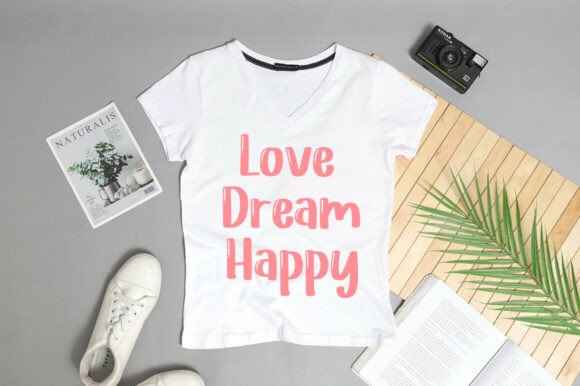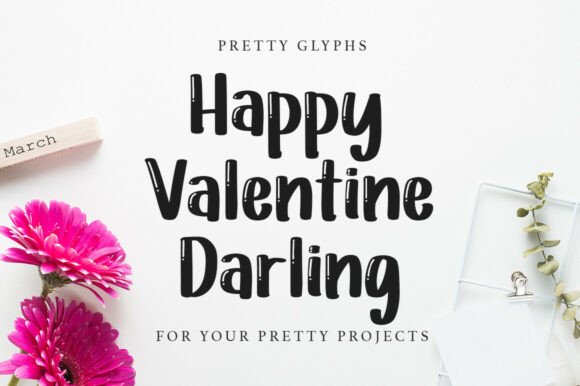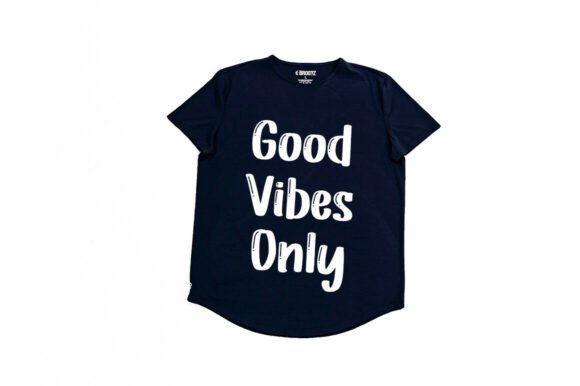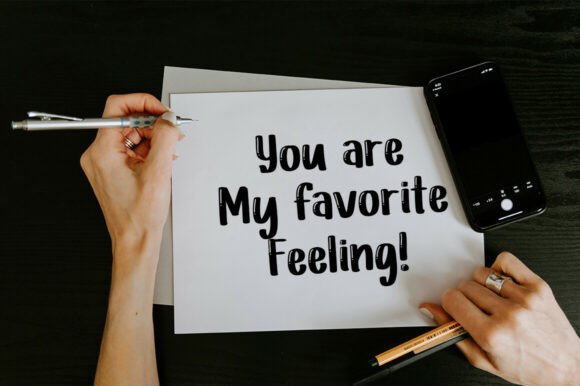
Introduction to Rustic Shine Font
Have you ever been in the midst of a creative project, searching for that perfect font to give it an extra oomph? For designers, finding the right typography can make all the difference between a good design and a great one. And that’s exactly where the Rustic Shine Font comes in – a game-changing display font that adds a high-energy “pop” to any project.
With its thick, juice-filled letterforms and integrated shine highlights, the Rustic Shine Font is a standout typeface that’s sure to grab attention. Whether you’re working on a celebratory branding project, creating eye-catching social media ads, or designing festive party posters, this font is an excellent choice. And the best part? It’s incredibly easy to use – simply pair it with vibrant gradients or neon colors to make the “shines” truly pop off the screen.
Key Features of Rustic Shine Font
- High-quality, unique font design ideal for creative projects
- Transparent background, making it easy to use with various backgrounds
- Designed to add a touch of elegance and sophistication to your design
- Perfect design resource for those looking for a high-quality, rustic font
Honest Review: Rustic Shine Font
I recently had the chance to experiment with the Rustic Shine Font, and I must say it’s been a great addition to my design toolbox. ✨ The font is perfect for creative projects that require a touch of elegance and sophistication. Its high-quality design makes it stand out from other free download fonts.
The Rustic Shine Font is ideal for designers who want to add a unique touch to their designs without breaking the bank. The font’s transparent background allows for seamless integration with any design resource, making it a versatile choice for various projects.
What I love about this font is its:
- Smooth, high-quality design that’s perfect for creative projects
- Transparent background for easy integration with other design resources
However, I did encounter a few limitations with the font: ⚠️
- The font may not be suitable for designs that require a lot of bold or italic text
- The font’s font size may not be as scalable as some other fonts
Overall, I’m impressed with the Rustic Shine Font’s design and versatility. While it may have a few limitations, it’s definitely a great resource for designers who want to add a touch of elegance to their projects.
Rustic Shine Font
The Rustic Shine Font is a high-quality design resource ideal for creative projects that require a touch of elegance and sophistication. With its unique, handwritten style, this font is perfect for various applications, including wedding invitations, menus, and branding materials.
Tips for Getting the Most Out of Rustic Shine Font
To get the most out of the Rustic Shine Font, consider the following tips:
- Use a transparent background to create a seamless design.
- Experiment with different font sizes and colors to achieve the desired effect.
- Combine the Rustic Shine Font with other design elements, such as images and shapes, to create a unique and visually appealing design.
Alternatives to Rustic Shine Font
1. Alegreya
Alegreya is a high-quality serif font that offers a sophisticated and elegant feel, making it perfect for creative projects that require a touch of luxury. Its high x-height and distinctive letterforms make it stand out from other serif fonts. When to use: For high-end branding, publishing, or editorial projects. How it compares to Rustic Shine Font: Alegreya has a more refined and polished look compared to the rustic, vintage feel of Rustic Shine Font.
Pacifico is a beautiful and elegant script font that adds a touch of warmth and personality to any design. Its high-quality design and free download make it a great choice for creative projects that require a high level of refinement. When to use: For branding, packaging, or advertising projects that require a touch of elegance. How it compares to Rustic Shine Font: Pacifico has a more refined and elegant look compared to the rustic, vintage feel of Rustic Shine Font.